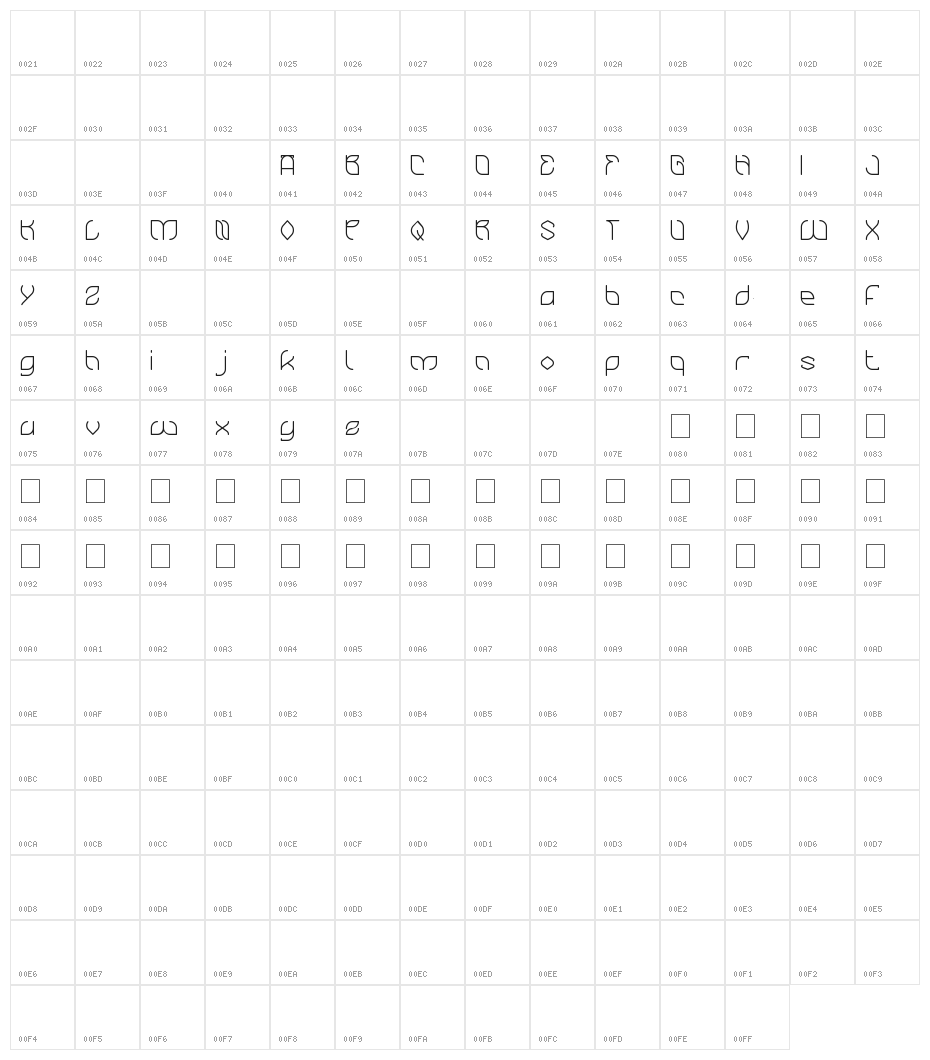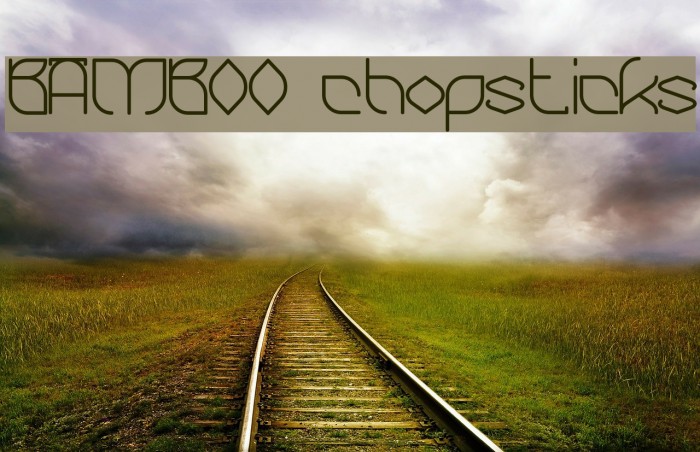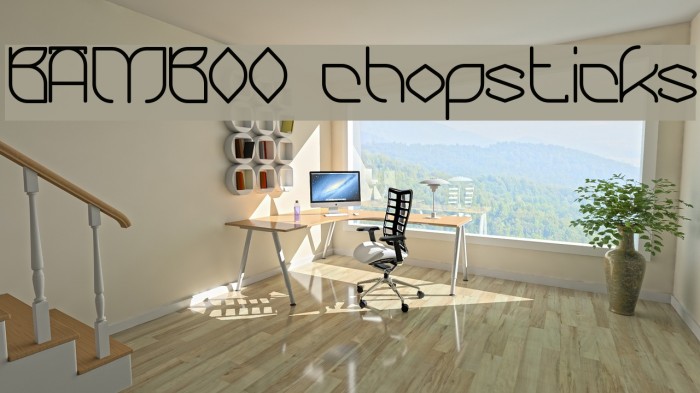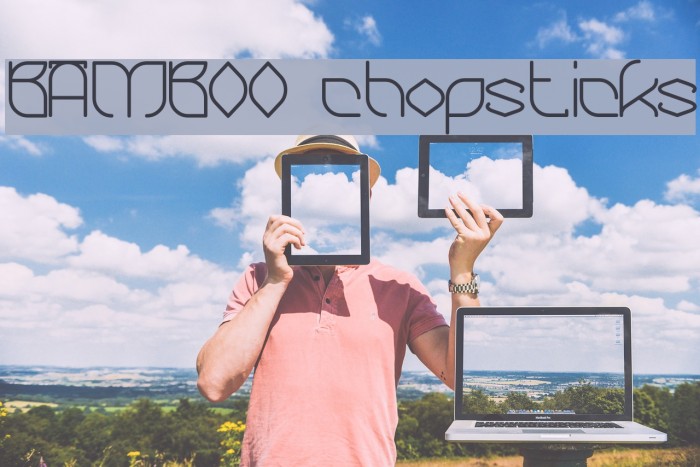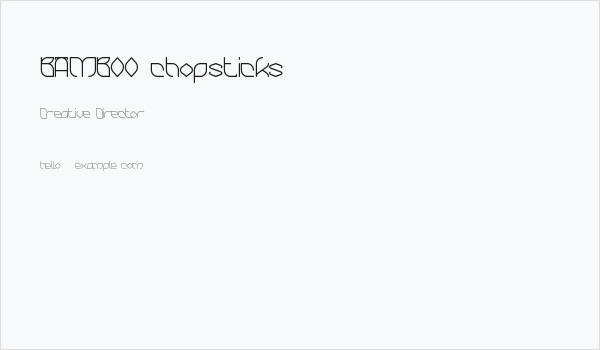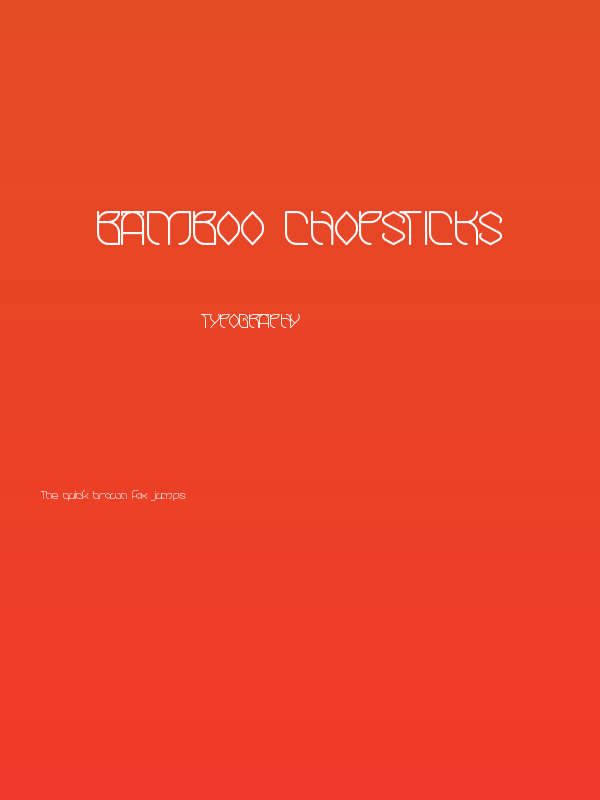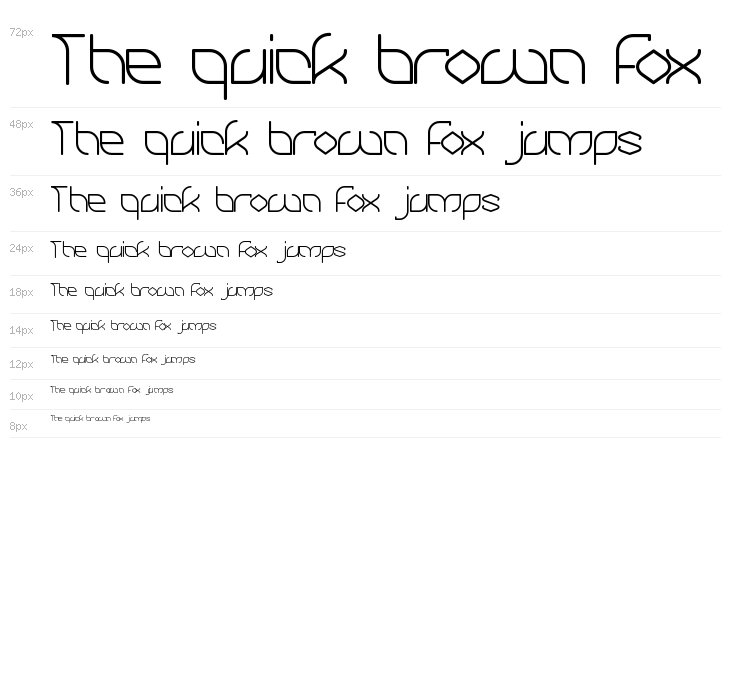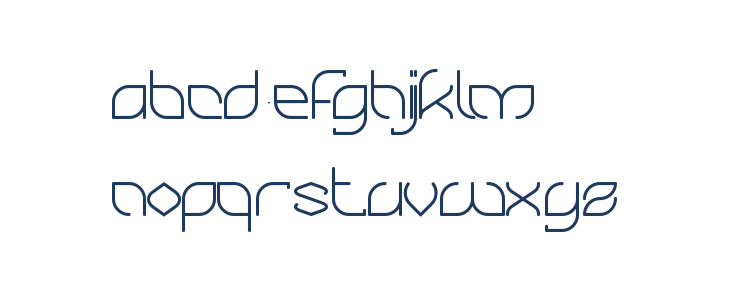
BAMBOO chopsticks Font
BAMBOO chopsticks Description
This font features a unique, geometric design with a modern and minimalist aesthetic. The characters are constructed with clean, straight lines and rounded corners, giving them a futuristic and tech-inspired look. The uppercase letters have a uniform height, while the lowercase letters maintain a consistent baseline, enhancing readability. The font's structure is open and airy, with ample spacing between characters, which contributes to its legibility and visual appeal. The overall style is sleek and contemporary, making it suitable for projects that require a modern touch.
| Use Case | Logos, Headlines, Digital interfaces |
| Proposed Projects | Ideal for tech branding, futuristic designs, digital interfaces, and modern advertising. |